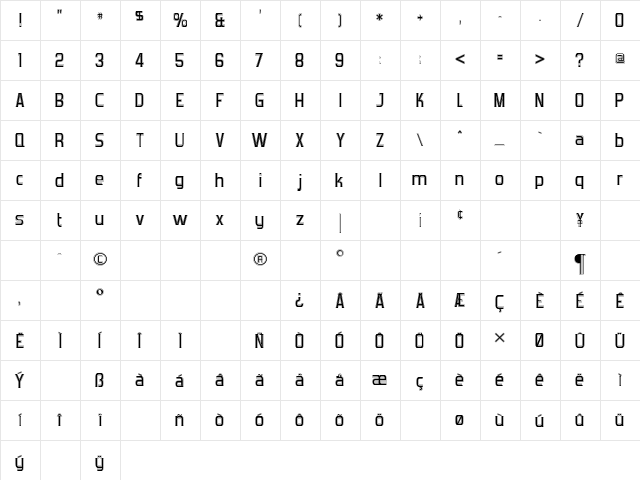
Forgotten Futurist College Regular
Design Context for Forgotten Futurist College Typeface
Forgotten Futurist College channels digital-age aesthetics through its sharp, structured letterforms — ideal for brands that want to signal innovation.
Pro Tip: Try Forgotten Futurist College with generous letter-spacing in UI labels and navigation — the geometric forms benefit from room to breathe.